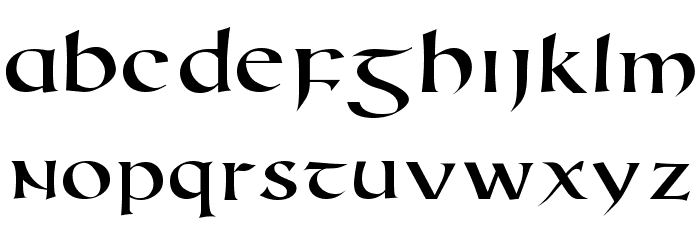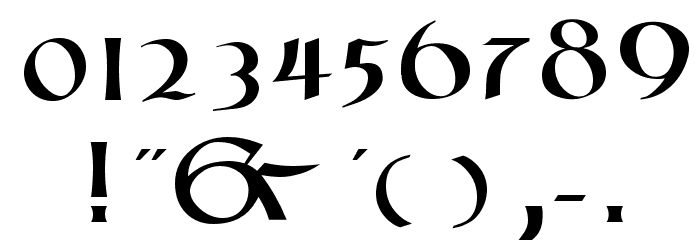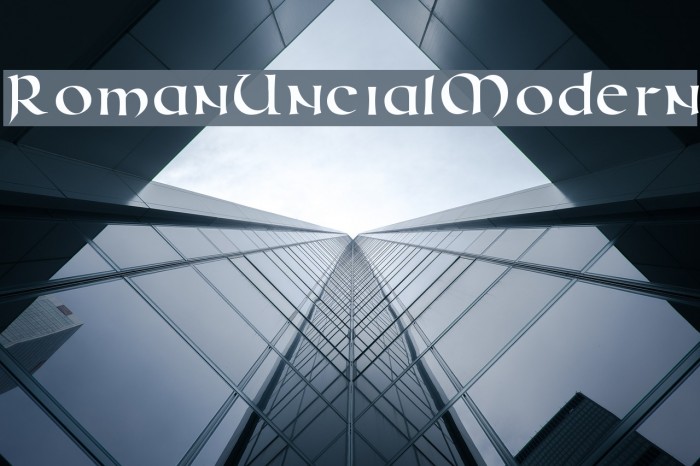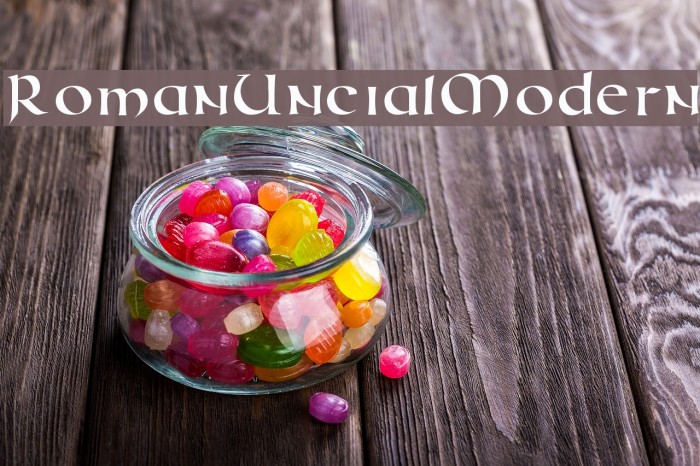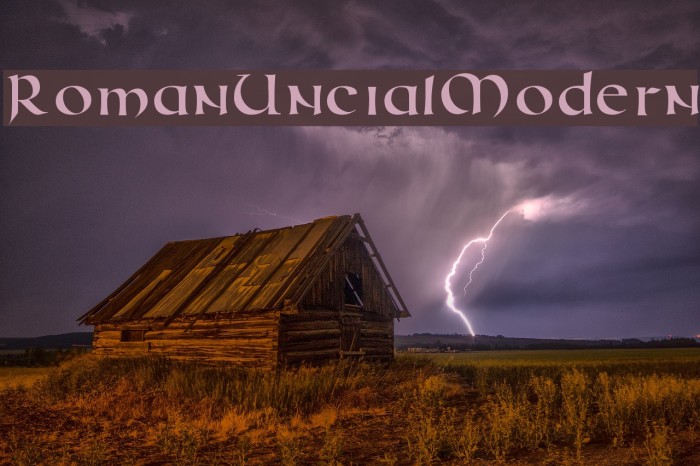
RomanUncialModern Font
This font exhibits a unique blend of historical and modern elements, characterized by its distinctively curved and angular strokes. The uppercase letters are bold and commanding, with a medieval flair that suggests a historical influence. The lowercase letters maintain a consistent style, offering a harmonious balance between tradition and modernity. The numerals are clear and legible, with a slight decorative touch that enhances their visual appeal. Special characters are crafted with the same attention to detail, ensuring a cohesive look across all glyphs. The overall design is both artistic and functional, making it suitable for a variety of applications.
A modern take on historical script with bold, angular strokes and artistic flair.
- Proposed Projects: Ideal for projects that require a historical or medieval aesthetic, such as book covers, posters, or themed event invitations.
- Overall Style: Vintage
- Use Case: Headlines, Logos, Decorative text